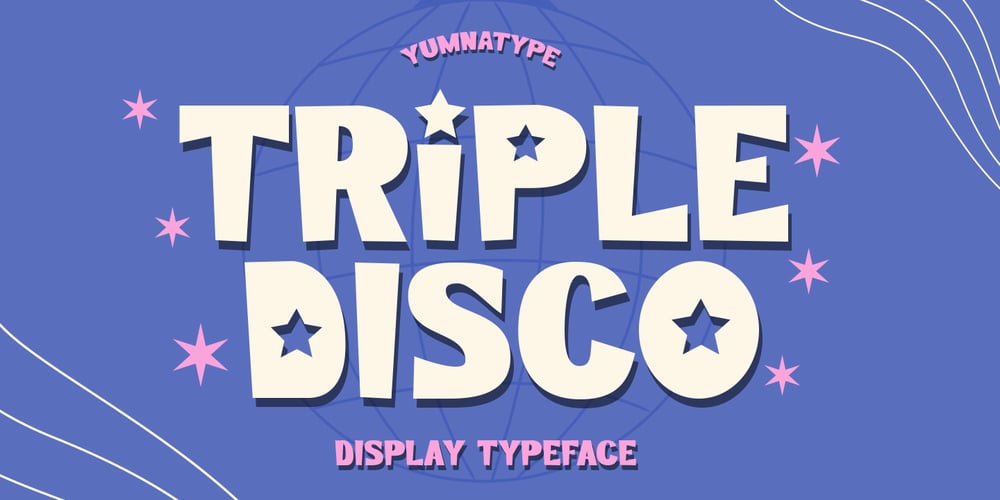
Triple Disco
Triple Disco font
Triple Disco Font Family was designed by Donis Miftahudin and published by Yumna Type. Triple Disco contains 1 styles and family package options. Triple Disco is a dynamic display font designed in uppercases to make a bold statement. With its bold weight, Triple Disco exudes confidence and impact. Each letter stands out prominently, ensuring that your message is conveyed with clarity and authority. The low contrast between the thick and thin strokes adds to the font’s solid and uniform appearance.The sturdy shapes of Triple Disco give it a distinctive and reliable feel. The letters are designed with a firm structure, adding a sense of strength to the overall font. In addition, enjoy the features here.Features: Multilingual Supports PUA Encoded Numerals and Punctuations Triple Disco fits in headlines, logos, posters, flyers, branding materials, print media, editorial layouts, and many more designs. Find out more ways to use this font by taking a look at the font preview.Thanks for purchasing our fonts. Hopefully, you have a great time using our font. Feel free to contact us anytime for further information or when you have trouble with the font. Thanks a lot and happy designing.